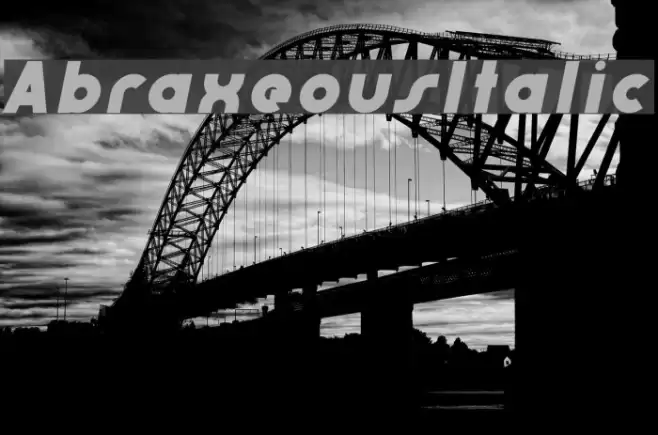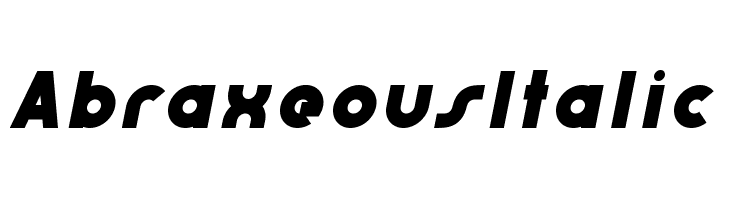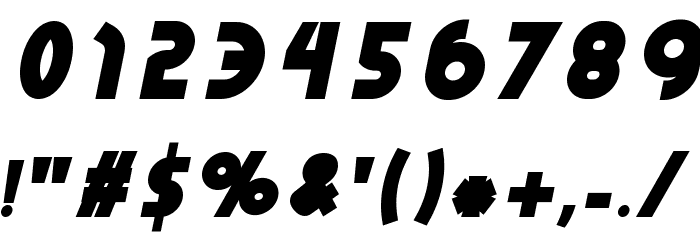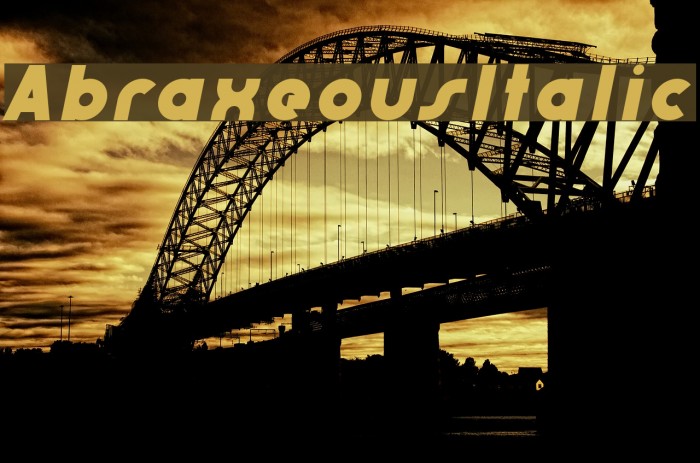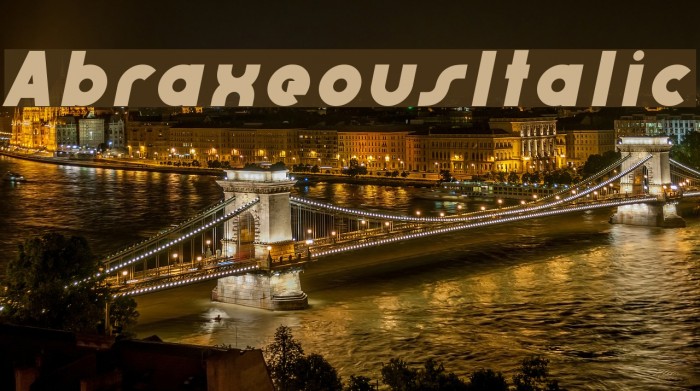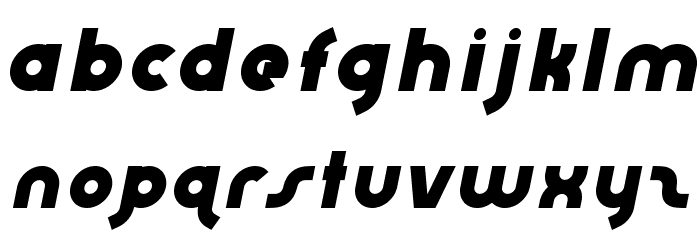
AbraxeousItalic Font
AbraxeousItalic Description
This font features a bold and dynamic style with a distinct italic slant, giving it a sense of movement and energy. The characters are thick and robust, with a slight angularity that adds a modern edge. The uppercase letters are strong and commanding, while the lowercase letters maintain a consistent weight and style. The numerals are clear and bold, ensuring readability. Special characters are uniquely styled, maintaining the overall aesthetic of the font. This typeface is designed to stand out, making it ideal for impactful headlines and attention-grabbing designs.
A bold, italic font with a modern, dynamic style from Uncategorized fonts.
- Proposed Projects: Ideal for branding, advertising, posters, and any project requiring a bold, modern look.